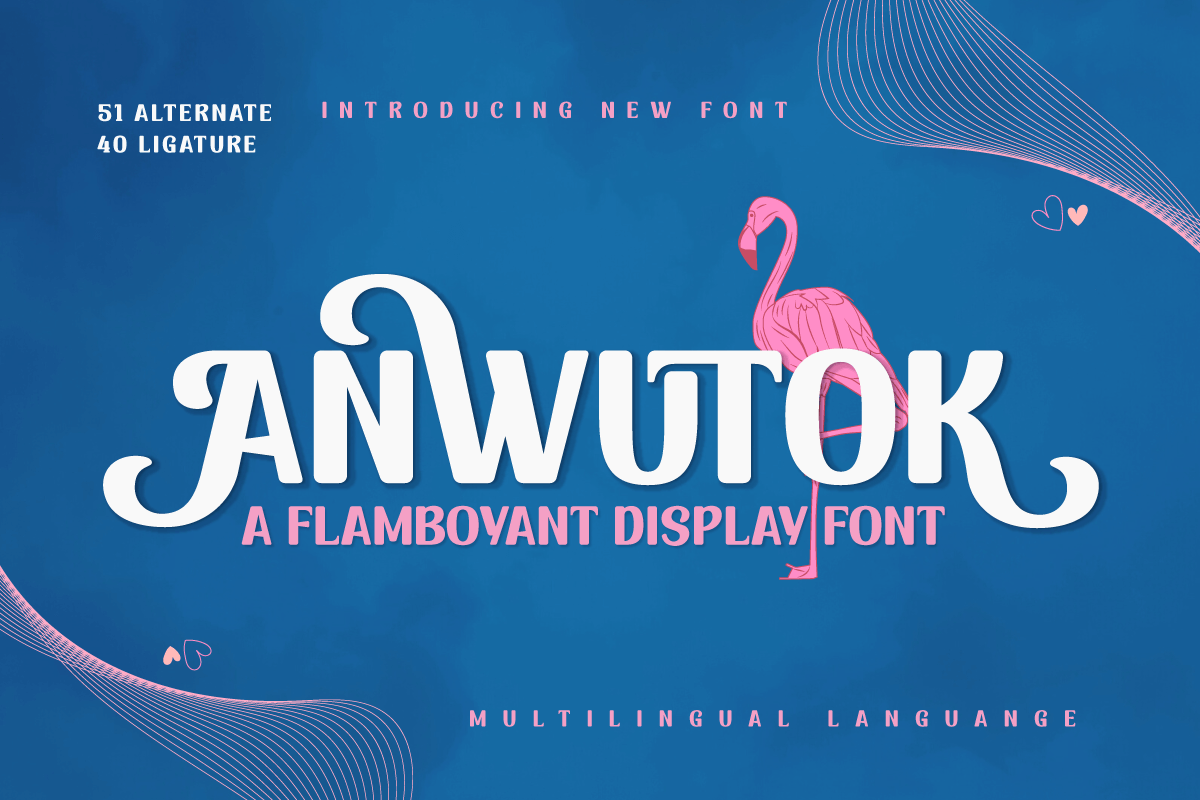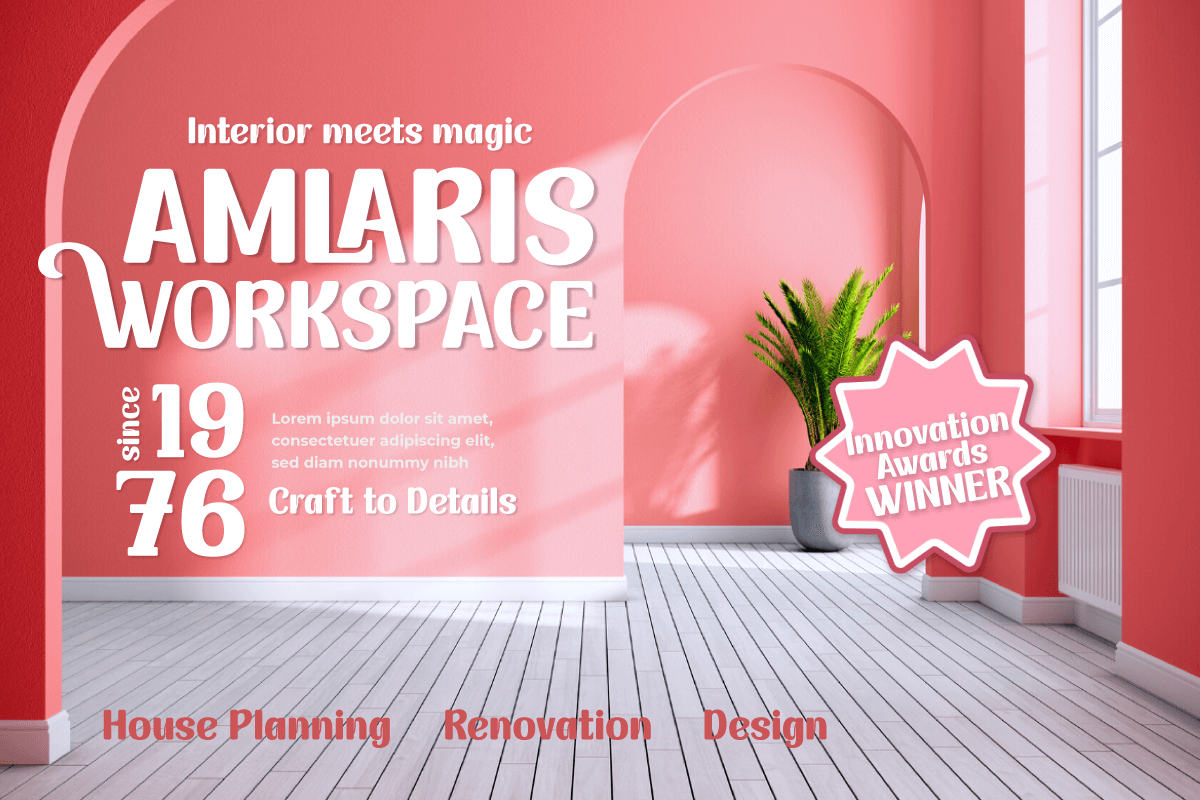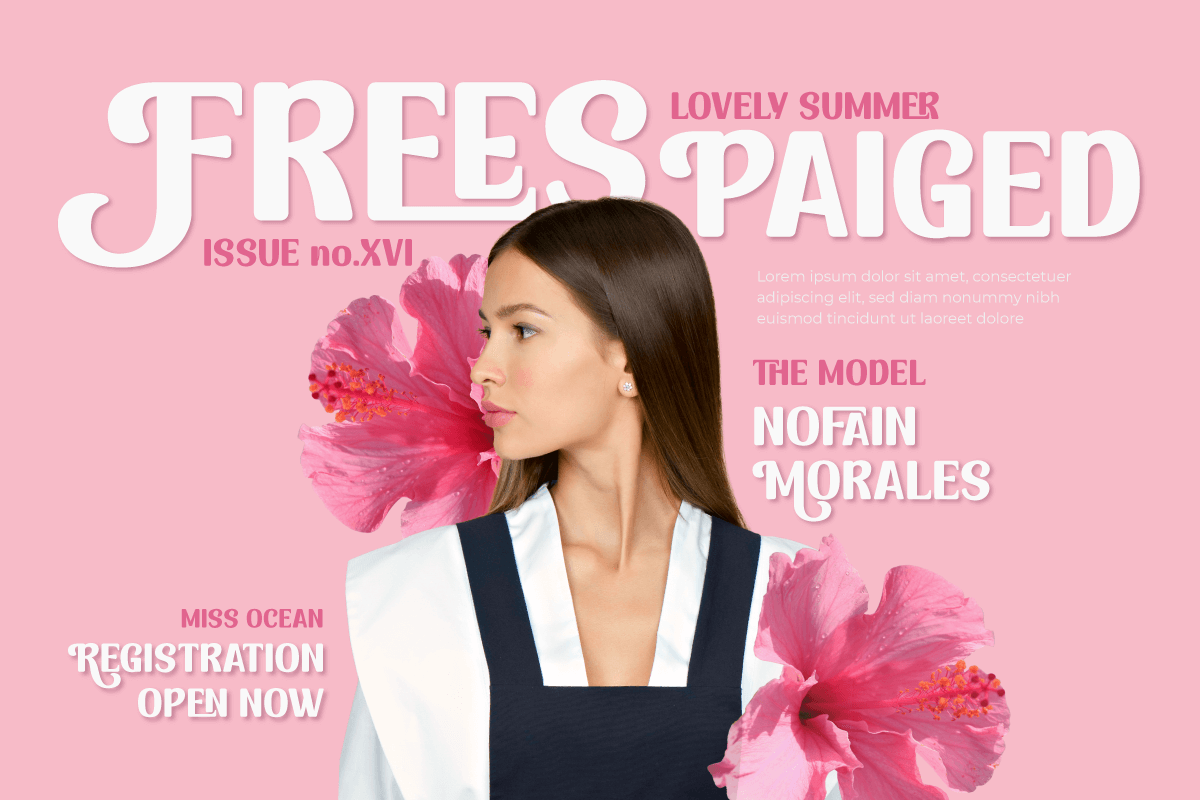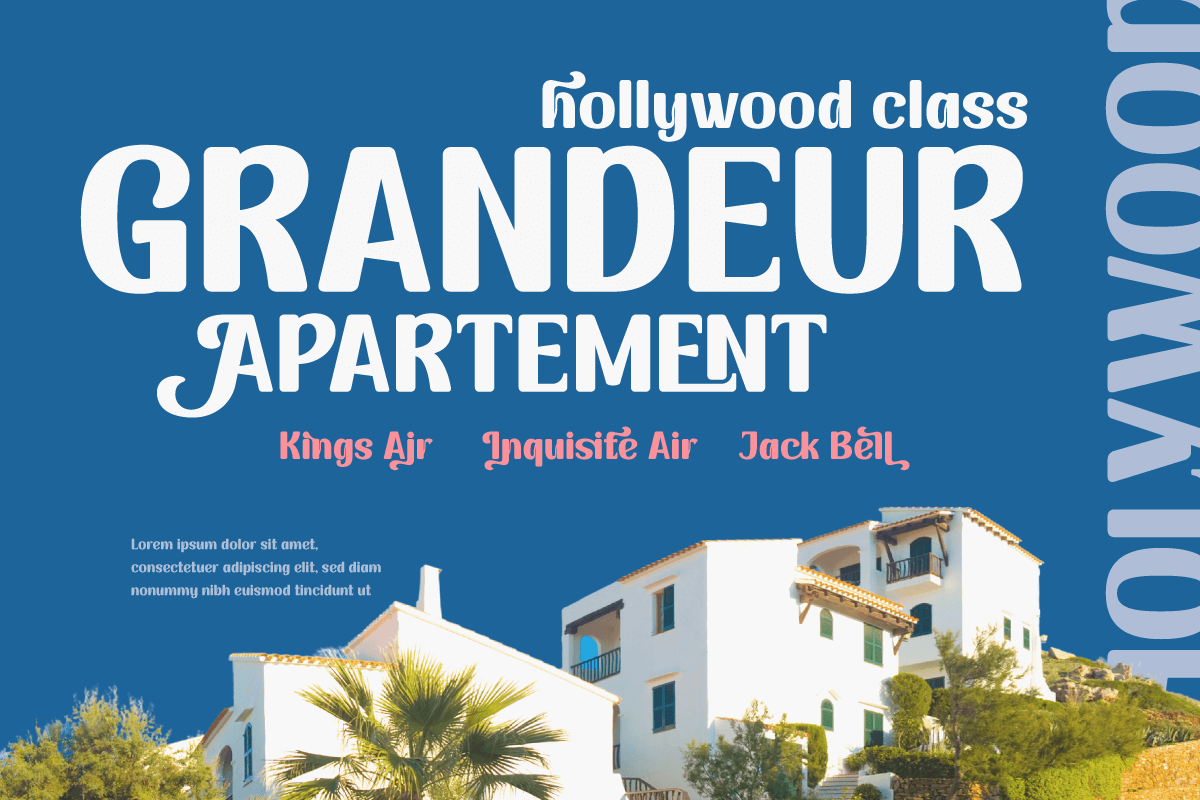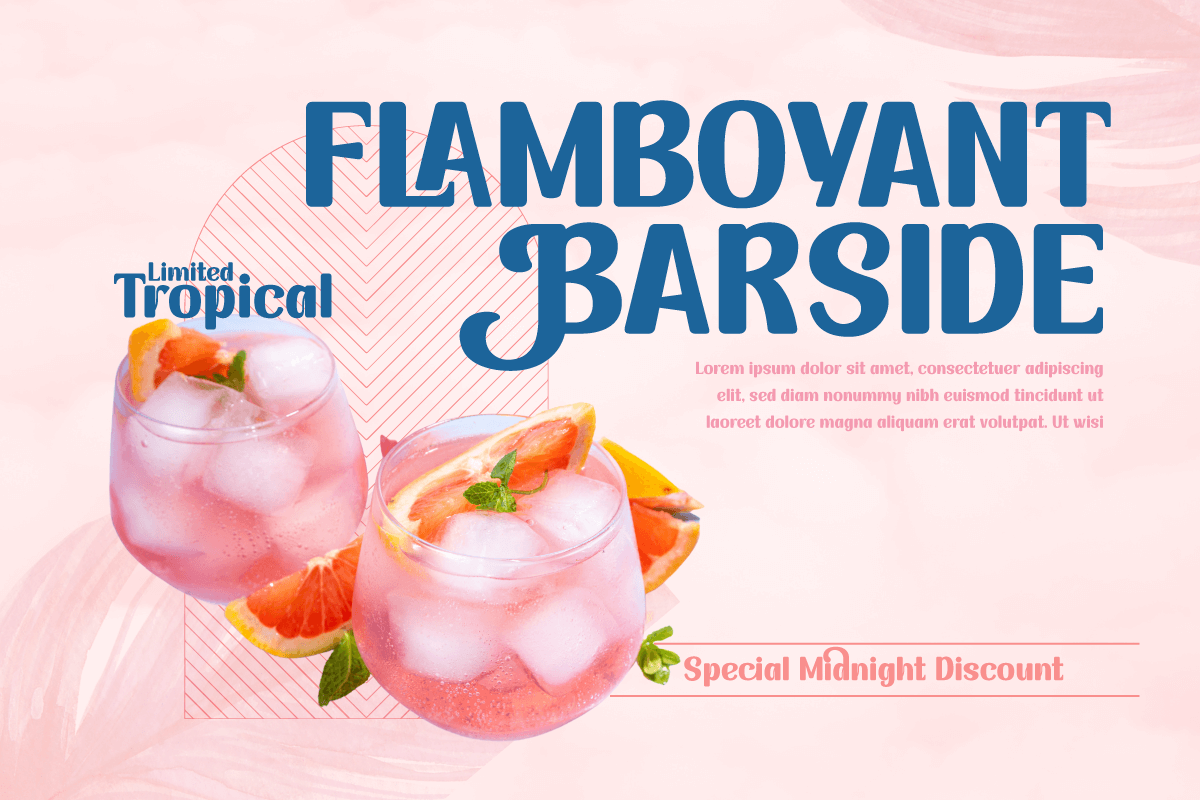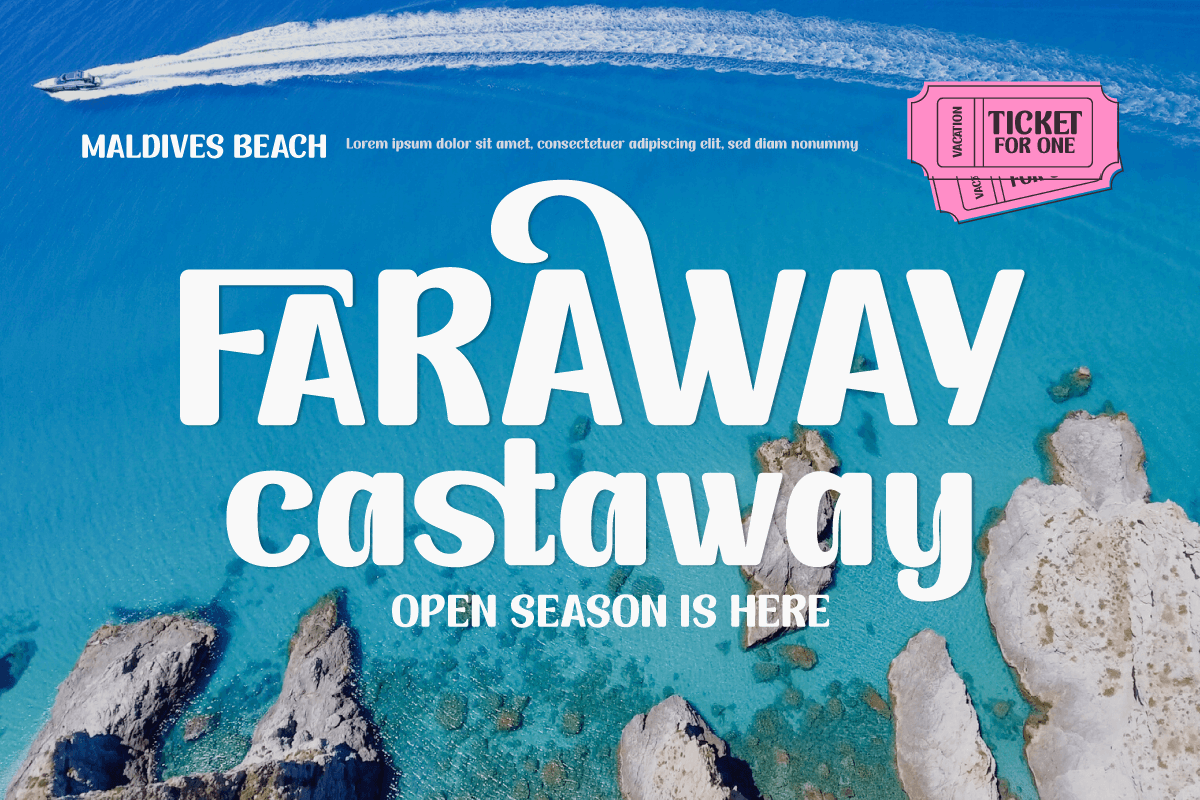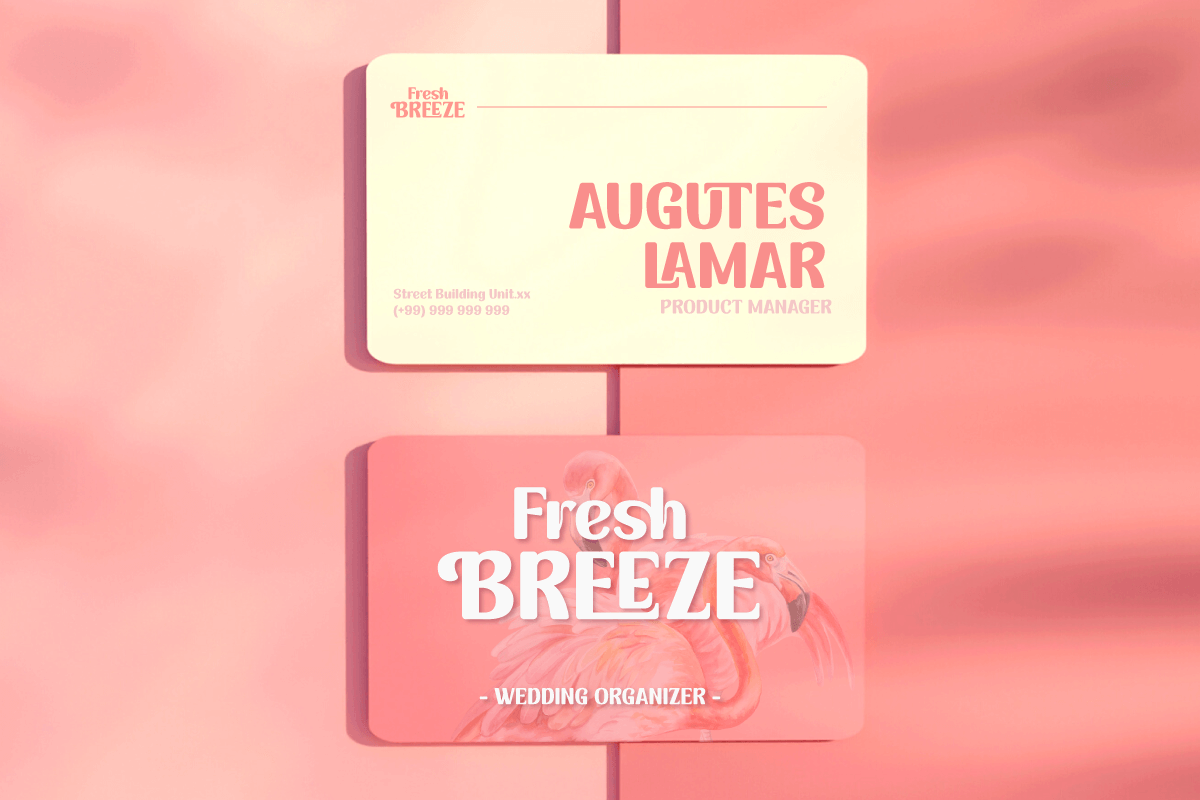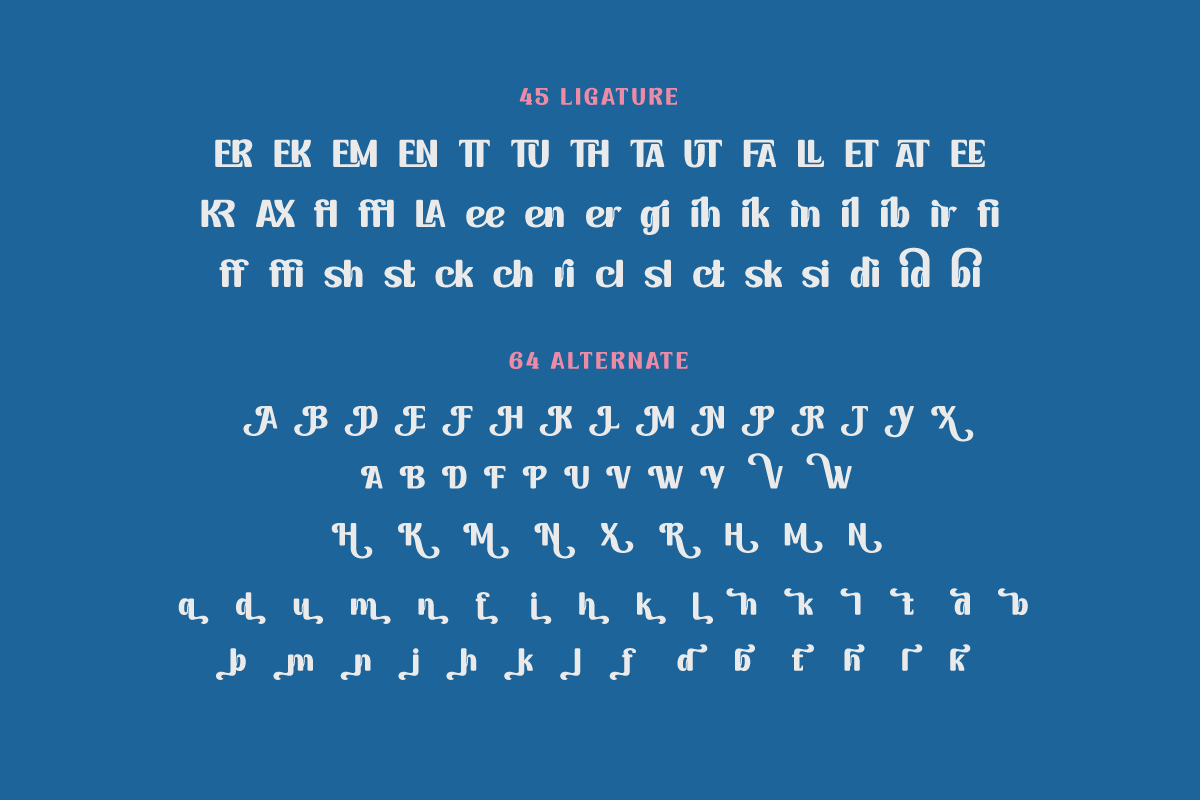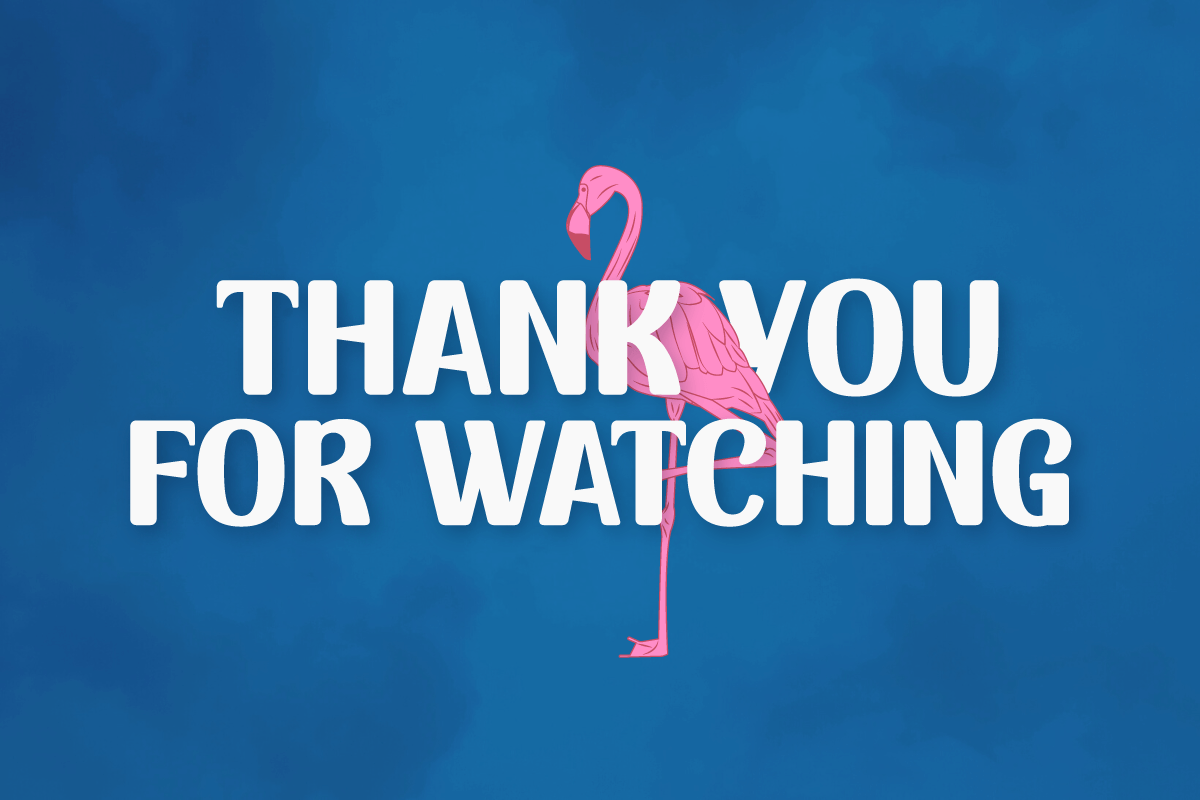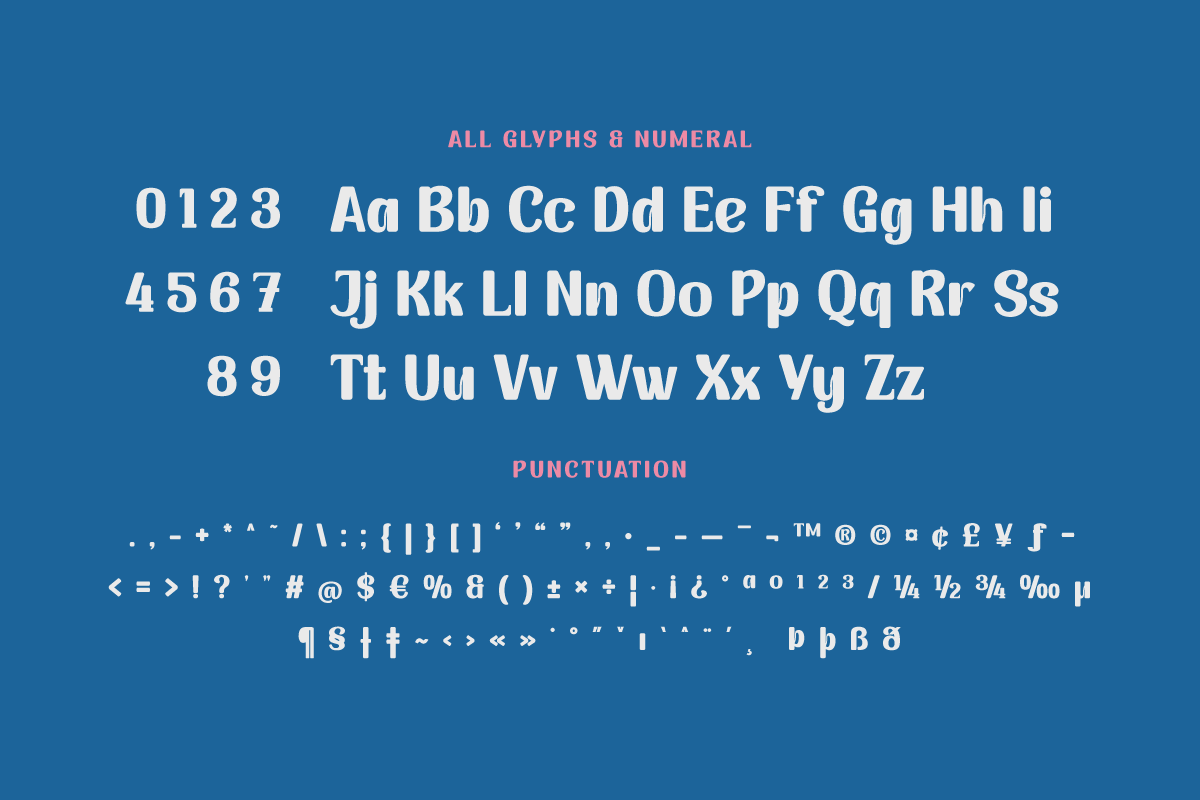
ANWUTOK | Display Font
Say hello to summer freshness with the Anwutok font! With a cheerful Display theme, this font is the perfect solution for creating projects with a relaxed and bright feel.
Anwutok comes with impressive features. With ligatures and alternates, you can easily combine interesting characters and create unique and creative typography designs.
Apart from that, Anwutok also supports multilingualism, allowing you to adapt this font to different languages. This gives you flexibility and extends the reach of your project to a wider market.
With a fresh and playful style, Anwutok brings a fun and uplifting touch to your designs. Each letter is designed with care to convey evocative beauty.
- Alternate, Ligature